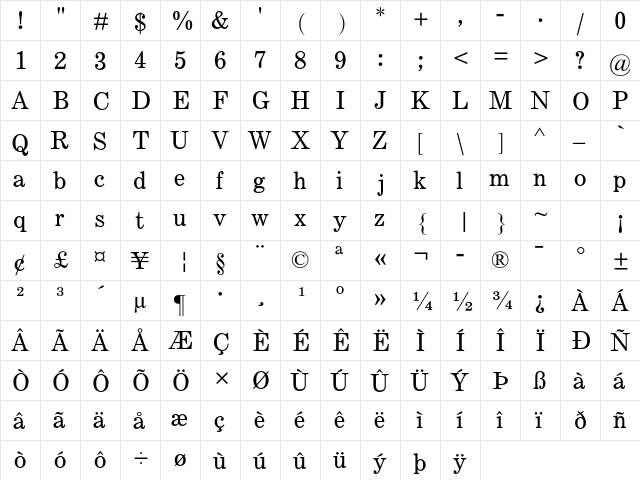
Century Std MT Regular
Design Context for Century Std MT Typeface
Century Std MT offers clean, dependable letterforms without strong stylistic allegiance, making it a practical choice for designers who need flexibility.